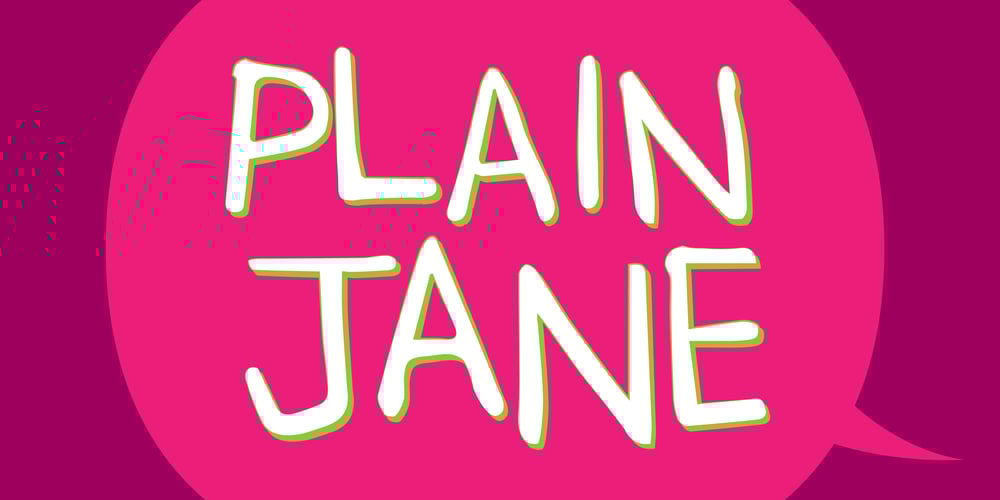
LF Plain Jane
LF Plain Jane font
LF Plain Jane Font Family was designed by Steve Wands and published by Lo-Fi Fonts. LF Plain Jane contains 4 styles and family package options. Don’t go for the fonts with all that fancy flare. You want something classy and timeless. A font that tips the hat to the old school hand letterers.